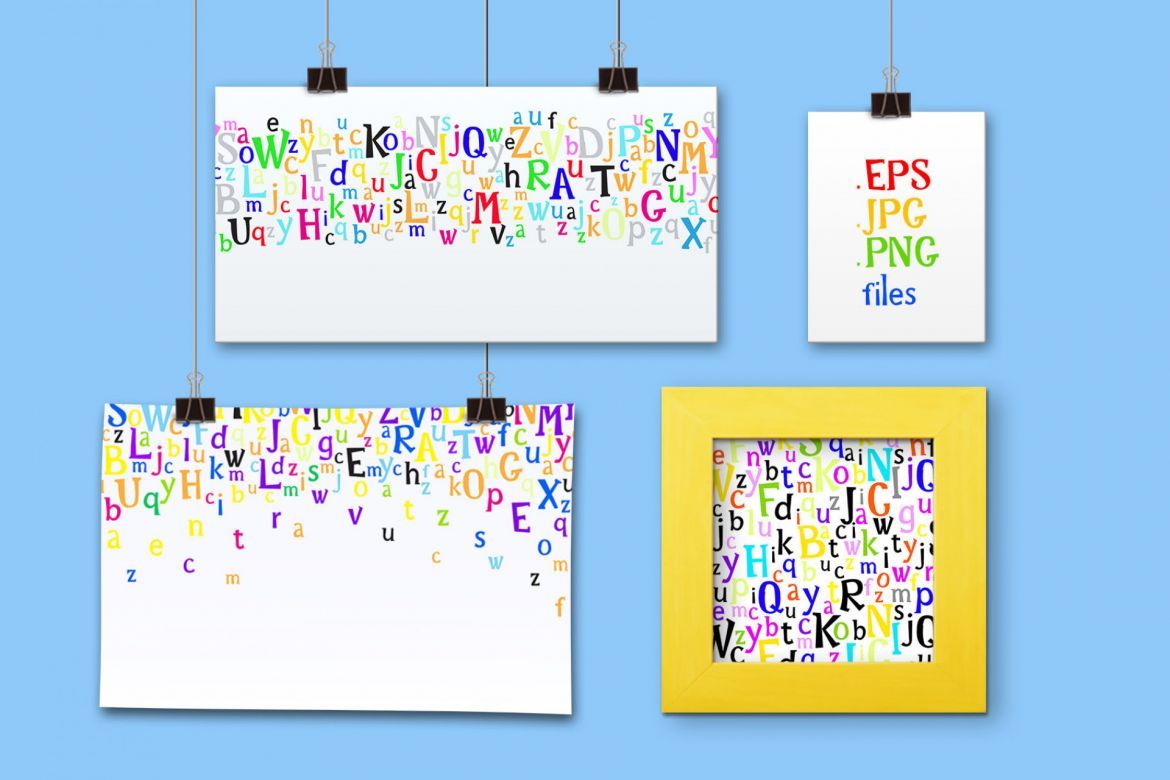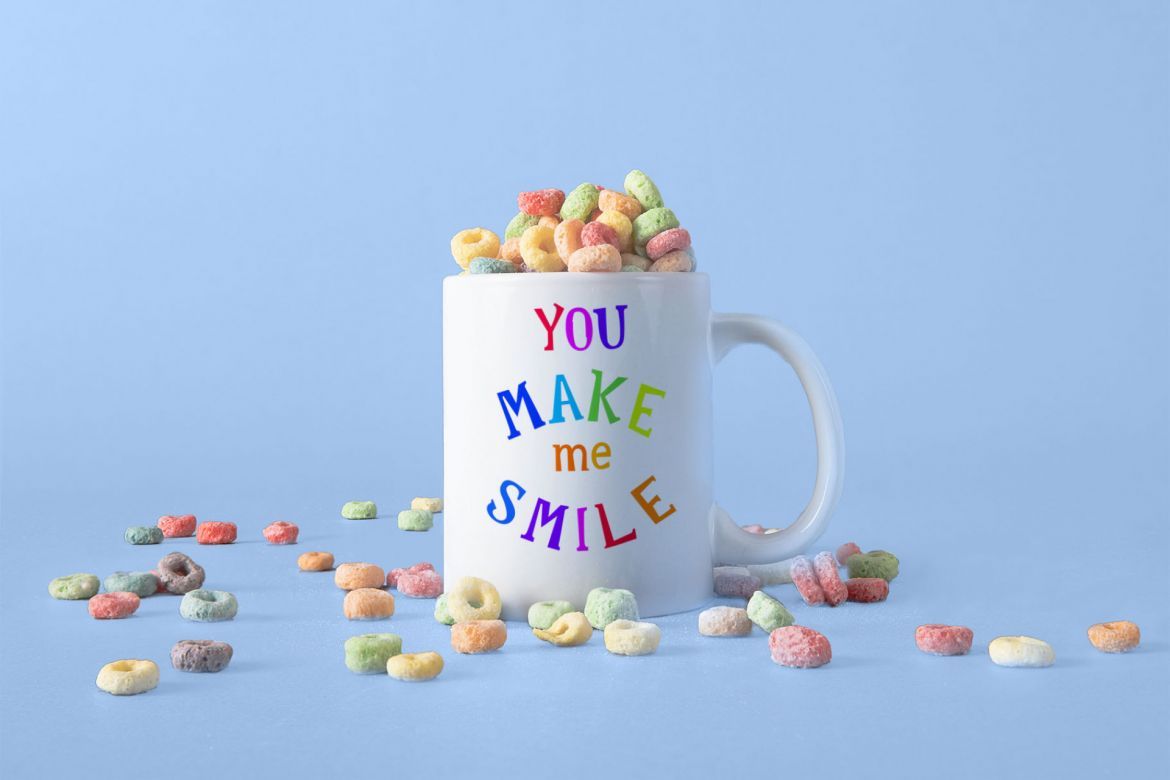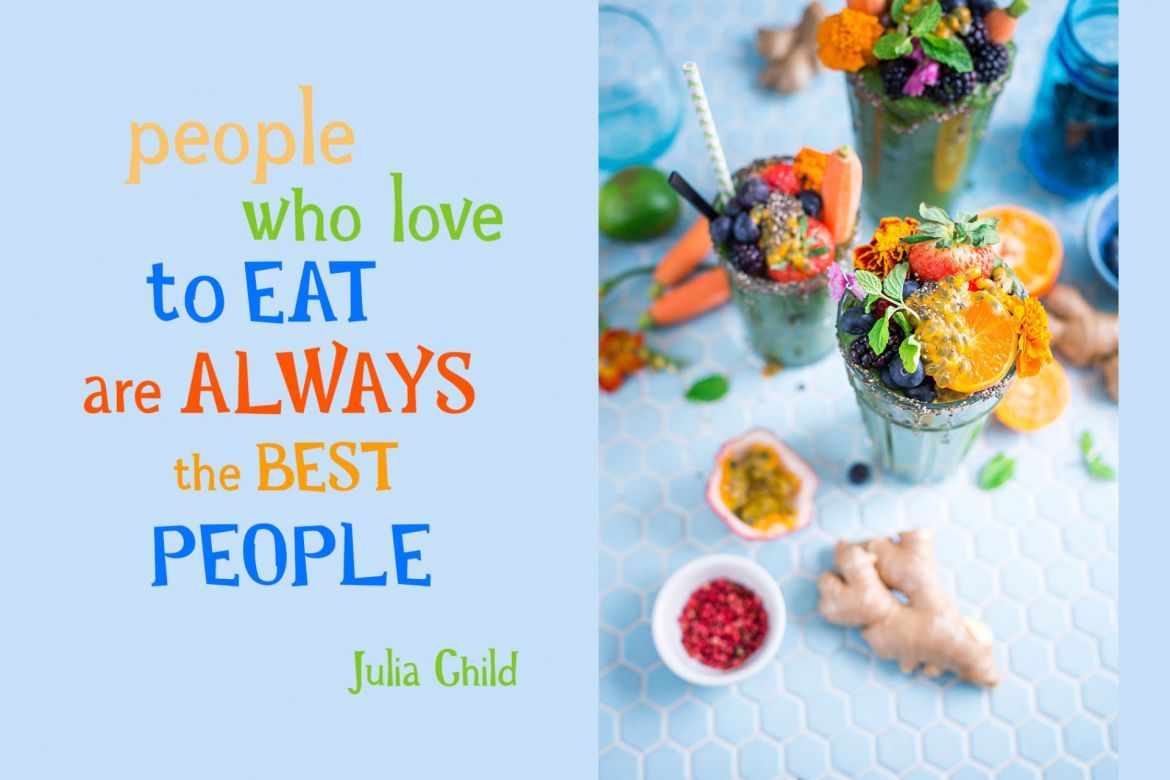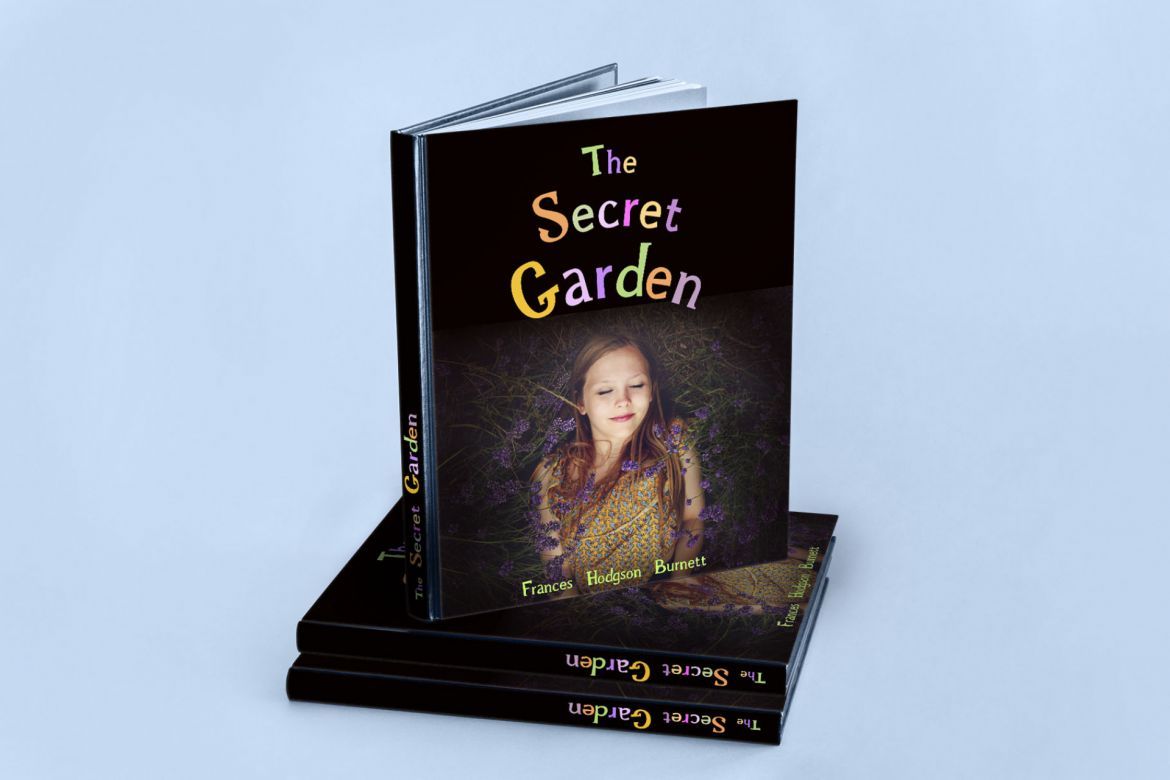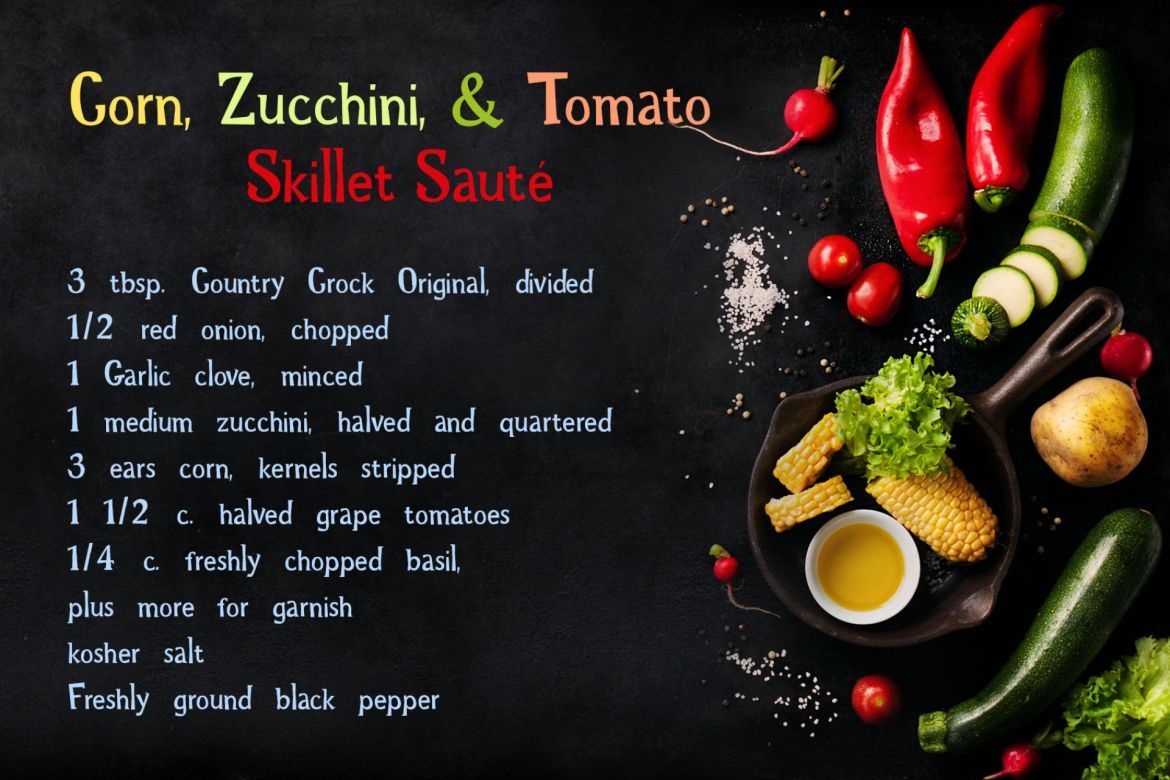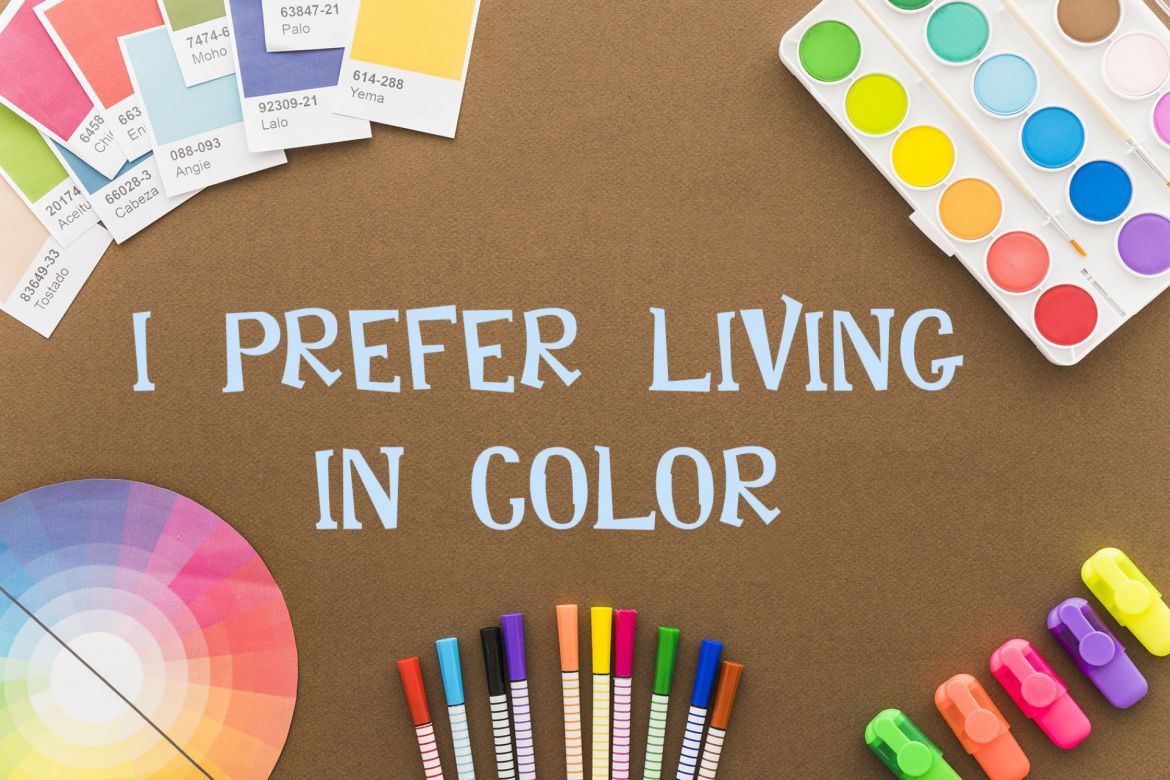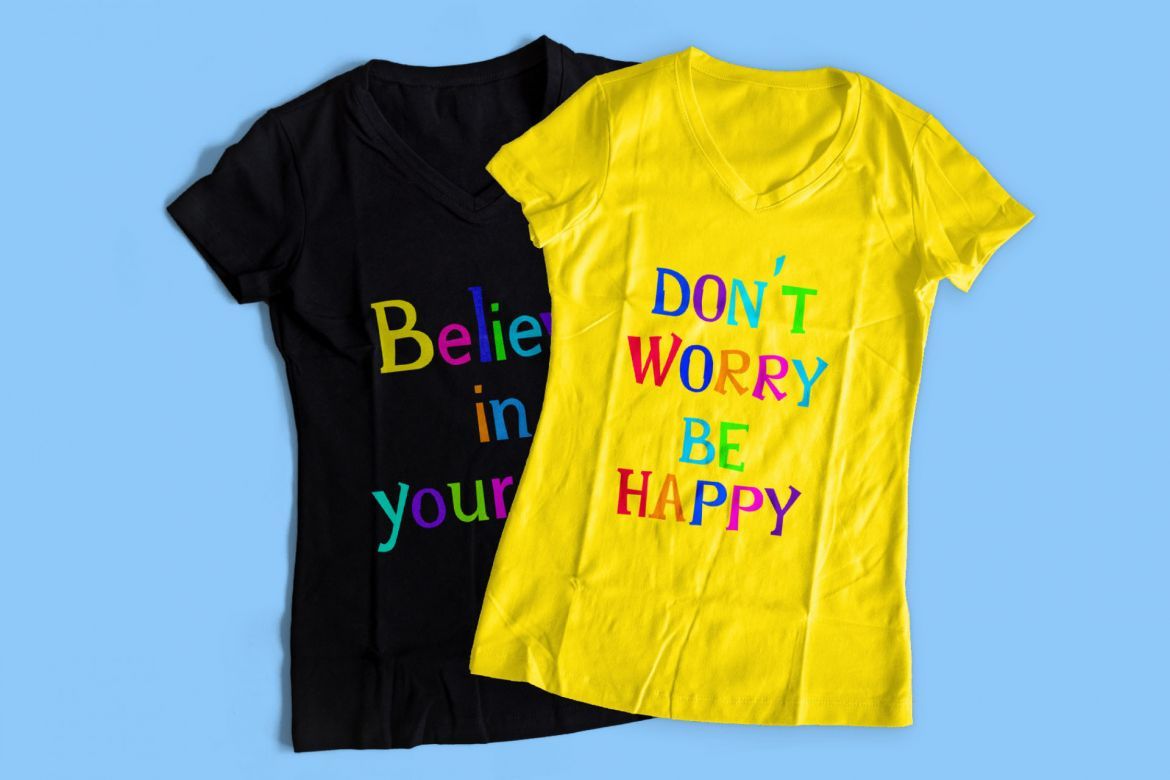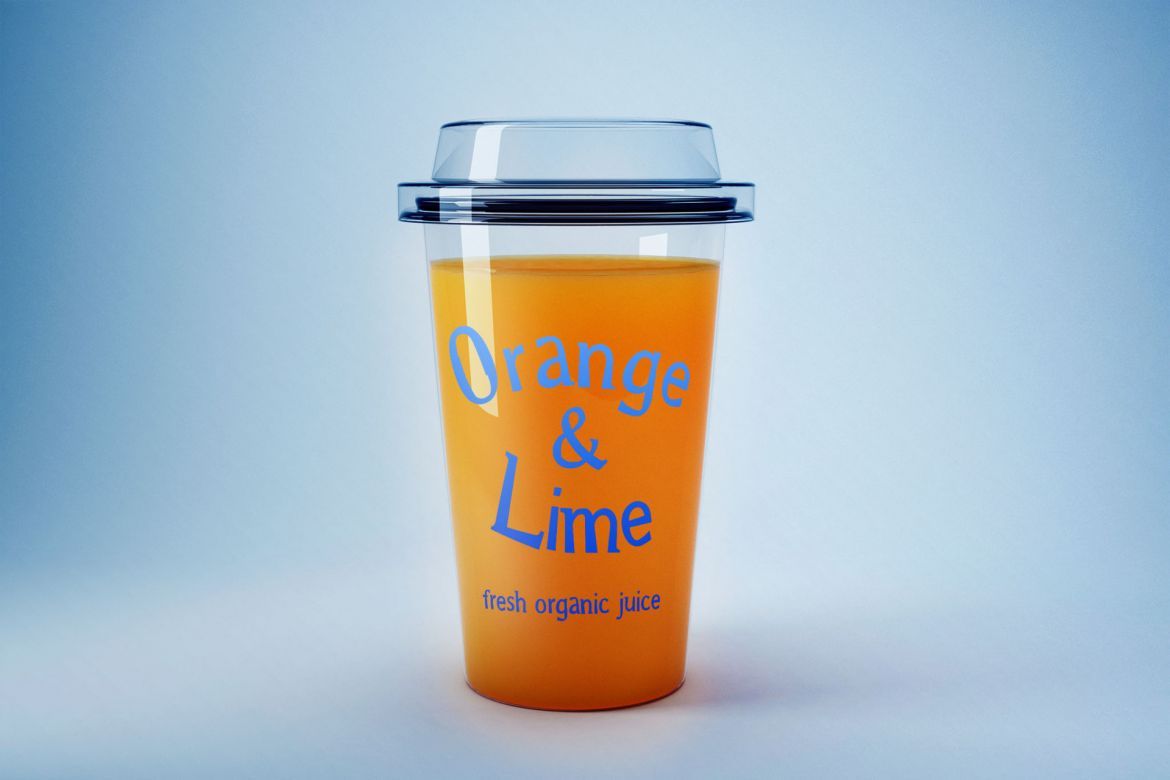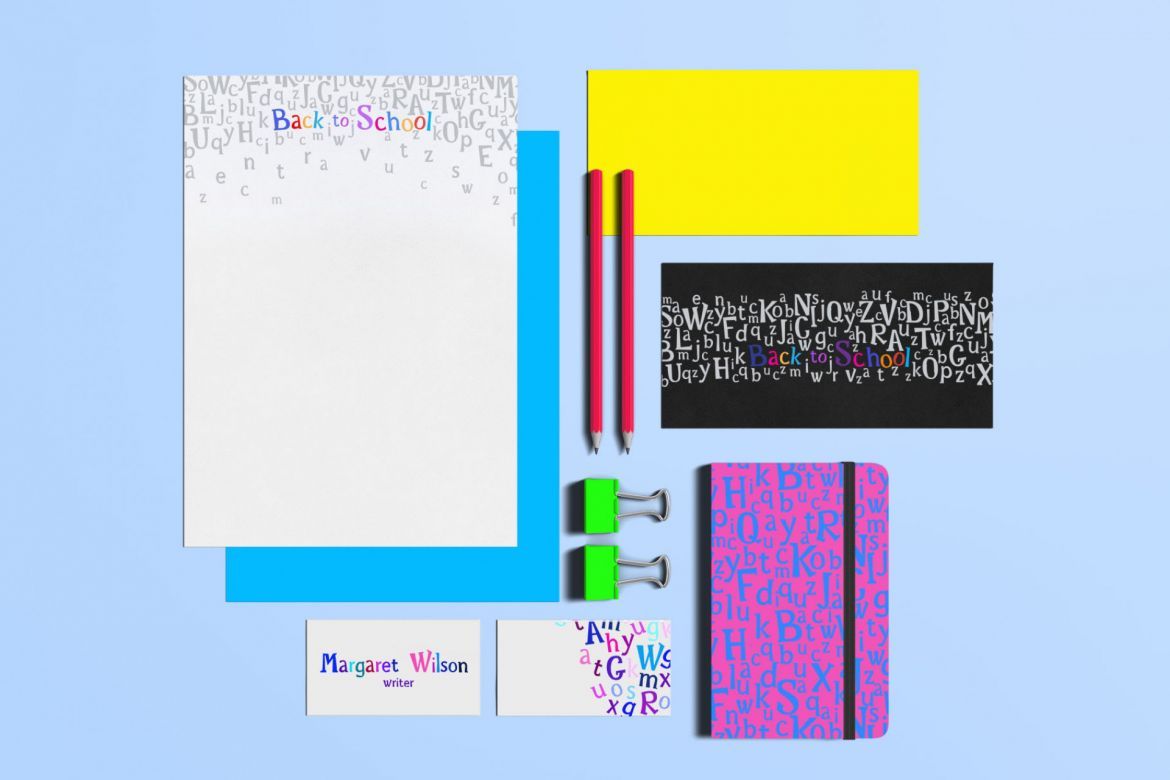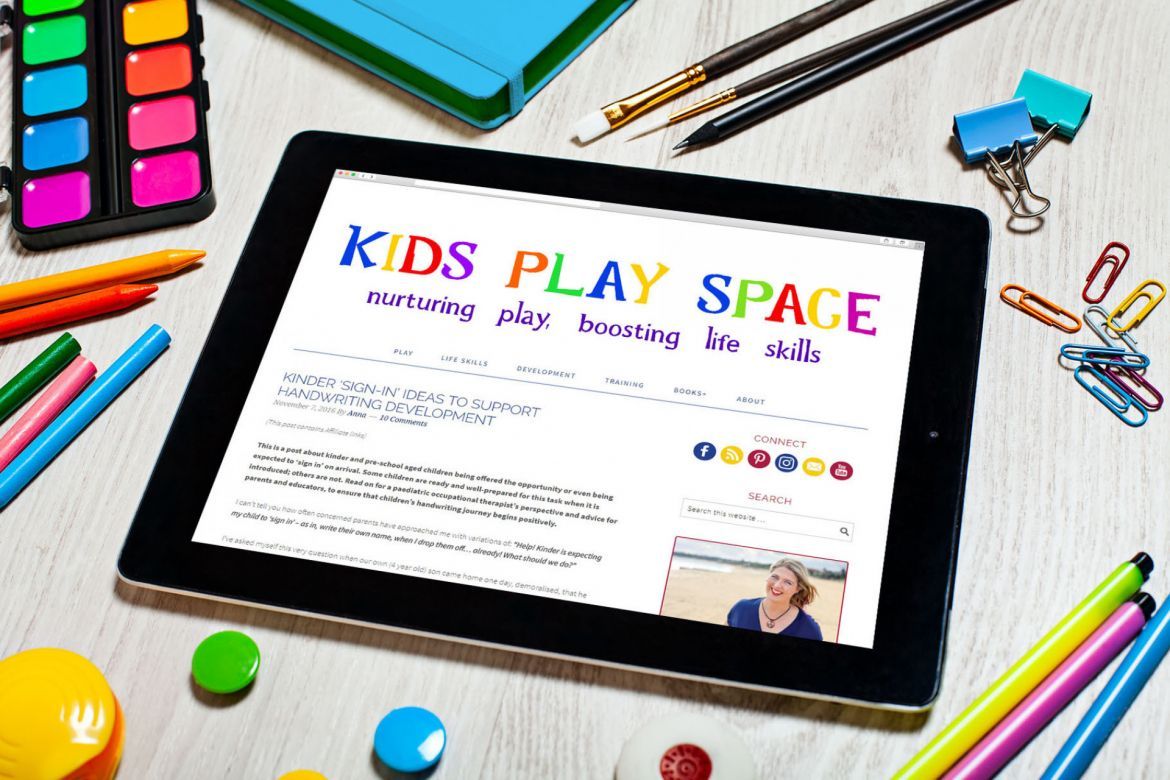
Rainbow Chalk Kids Font
Rainbow Chalk is playful serif fun kid's font and it contains the uppercase and lowercase letters, a large range of numerals and punctuation. The Rainbow Chalk font will be perfect for use in all your fun design projects be it logos, labels, packaging design, blog headlines. Also, it will look great on mugs, cards, kids books headlines or other typographic projects.